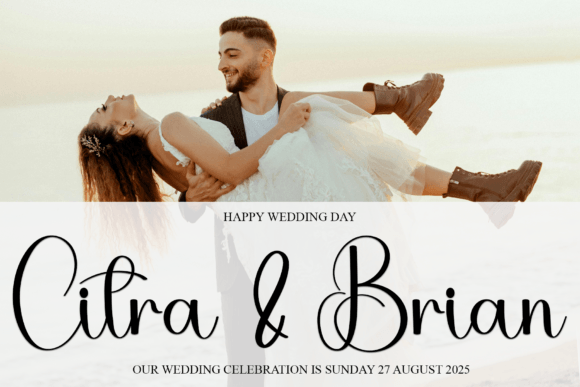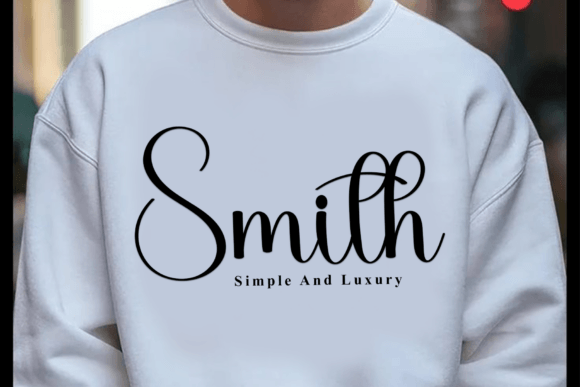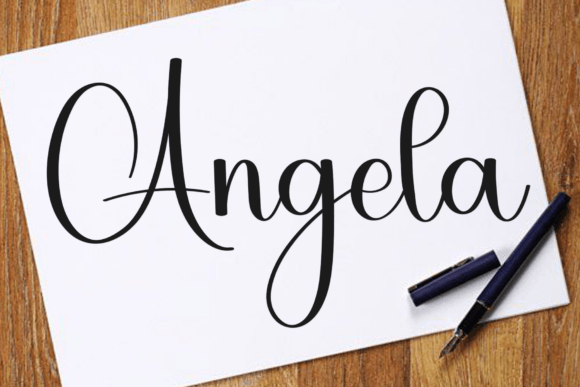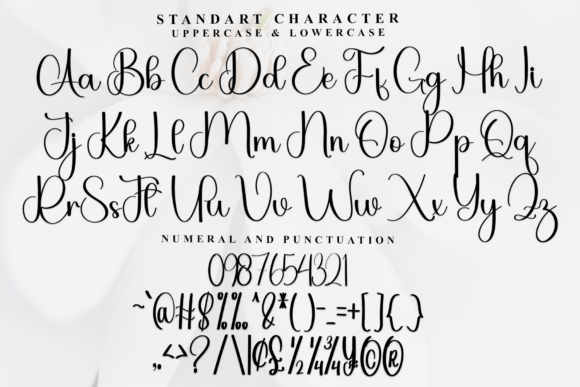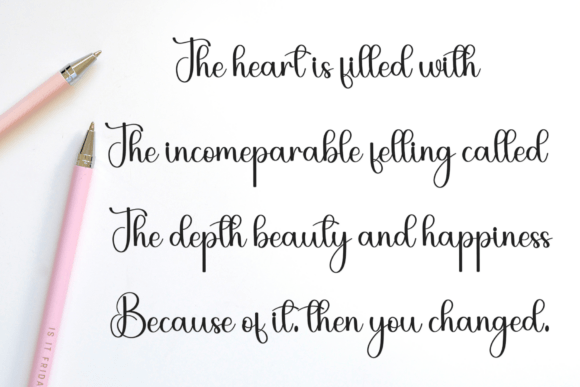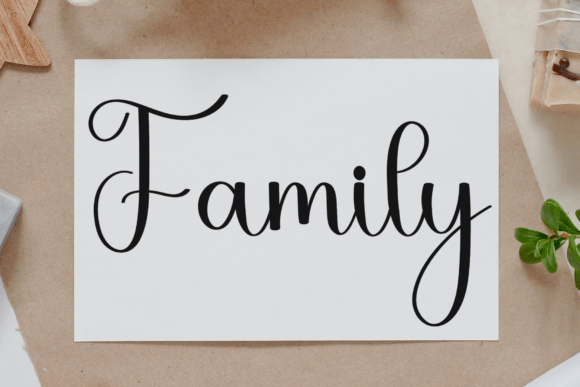
Discover the Charming Amelia Font: A Perfect Blend of Casualness and Creativity
Are you tired of using the same old fonts for your personal projects, invitations, and social media graphics? Look no further than the Amelia Font, a casual and creative typeface that exudes warmth and friendliness. Its unique, hand-drawn aesthetic is sure to add a fun and unique touch to any design, making it perfect for designers and crafters alike.
The Characteristics of Amelia Font
Amelia Font is characterized by its round, playful strokes that create a relaxed and approachable feel. The font’s charming, hand-drawn aesthetic is reminiscent of a warm conversation with a friend, making it perfect for designs that require a personal touch. Whether you’re creating a birthday invitation, a social media graphic, or a personal blog, Amelia Font is sure to add a touch of warmth and personality to your design.
What Makes Amelia Font Special?
One of the things that sets Amelia Font apart from other fonts is its standard PUA Encoded glyphs. This means that the font is equipped with a wide range of characters and symbols that can be used in various application engines, including Adobe Photoshop, Corel, Adobe Illustrator, Canva, and many others. This makes it easy to use Amelia Font in a variety of design applications, without worrying about compatibility issues.
Amelia Font is a versatile typeface that is perfect for designers and crafters who want to add a personal touch to their designs. Whether you’re creating a logo, a brochure, or a social media graphic, Amelia Font is sure to add a touch of warmth and personality to your design. The font’s casual and creative aesthetic makes it perfect for a wide range of design applications, including:
- Personal projects: Use Amelia Font to add a personal touch to your blog, website, or social media graphics.
- Invitations: Create beautiful and unique invitations for birthdays, weddings, and other special occasions.
- Social media graphics: Use Amelia Font to create eye-catching social media graphics that are sure to grab attention.
- Logos: Create a unique and memorable logo for your business or brand.
Why Choose Amelia Font?
There are many reasons why designers and crafters choose Amelia Font for their designs. Here are just a few:
- Unique and creative aesthetic: Amelia Font has a unique and creative aesthetic that is sure to add a touch of personality to your designs.
- Easy to use: The font is easy to use and compatible with a wide range of design applications.
- Warm and friendly feel: Amelia Font has a warm and friendly feel that is perfect for designs that require a personal touch.
- Versatile: The font is versatile and can be used in a wide range of design applications.
In conclusion, Amelia Font is a casual and creative typeface that is perfect for designers and crafters who want to add a personal touch to their designs. Its unique, hand-drawn aesthetic and warm and friendly feel make it perfect for a wide range of design applications, from personal projects to social media graphics. With its standard PUA Encoded glyphs and compatibility with a wide range of design applications, Amelia Font is a versatile and easy-to-use font that is sure to become a favorite in your design arsenal.